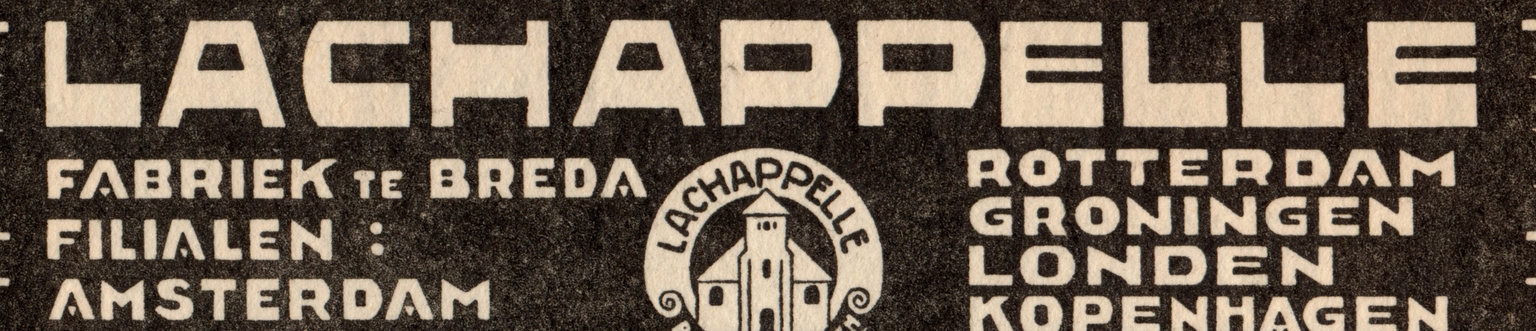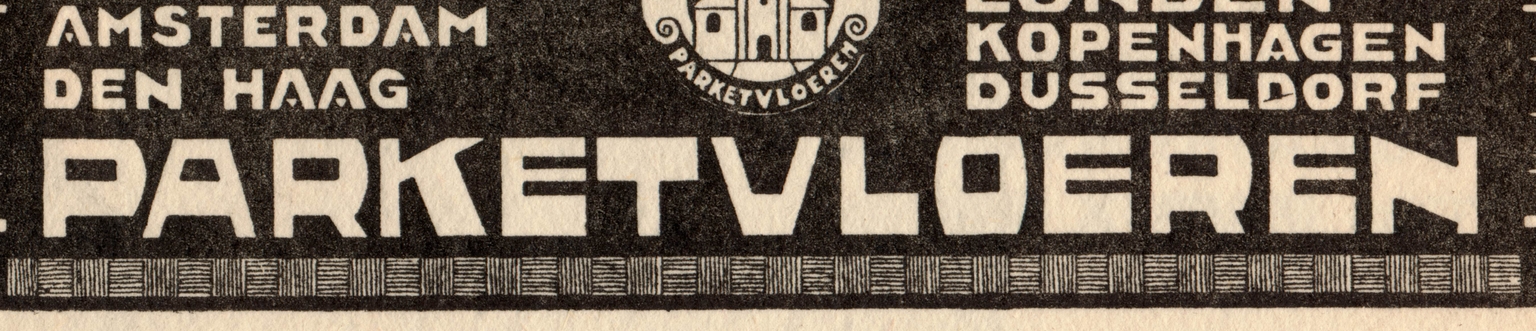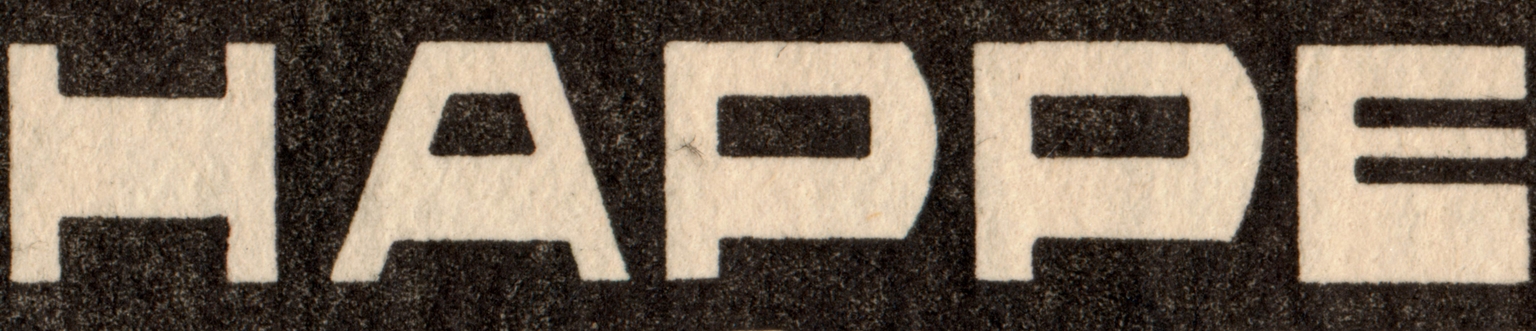
Lachappelle
Lachappelle is a distinctive display typeface inspired by the striking lettering found in a vintage Dutch advertisement for a flooring company. Rendered in a reverse contrast style the original letters exude both eccentricity and confidence. This peculiar alphabet, bears a resemblance to letter forms used by the renowned Dutch artist and Resistance hero Chris Lebeau (1878–1945) in some of his work.
In 2025, Ramiro Espinoza undertook the task of reviving and refining this unique alphabet. He carefully redrew the characters, addressing inconsistencies and expanding the set with accents, punctuation, and symbols to meet the demands of contemporary graphic design. The result is Lachappelle, a fully functional typeface that preserves the charm of the original while offering versatility and precision. Ideal for posters, branding, websites, and expressive branding projects, Lachappelle brings a bold, historical flair into today’s typographic landscape.